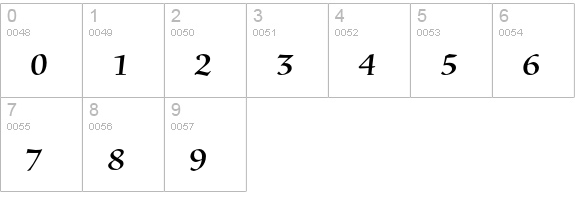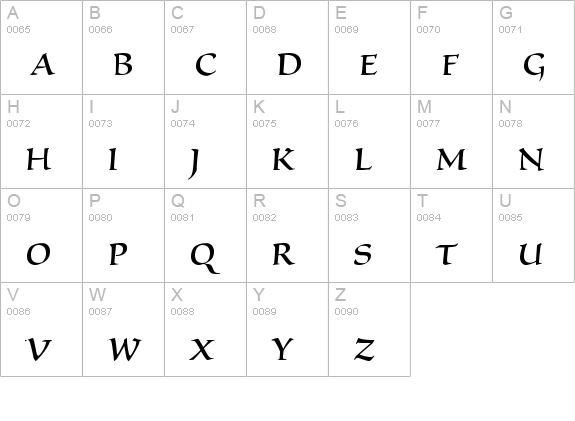
Silentium Pro Roman II Font Details
Silentium Pro Roman II font is a timeless and elegant typeface that exudes sophistication and refinement. With its clean lines and classic proportions, this font is perfect for adding a touch of class to any design project. The Silentium Pro Roman II font features a harmonious balance between sharp angles and graceful curves, creating a visual harmony that is pleasing to the eye. Its versatile nature makes it suitable for a wide range of applications, from luxurious branding and advertising to editorial design and elegant invitations. One of the standout features of the Silentium Pro Roman II font is its legibility, even at small sizes. The meticulously crafted letterforms ensure that every character is distinct and easily readable, making it an excellent choice for body text in print materials or on digital platforms. One of the best things about Silentium Pro Roman II font is that it is completely free. Yes, you read that right! This exquisite font is freely available to download at FontsMarket.com. Whether you are a professional designer or a hobbyist, you can now access this premium font without any cost. So why wait? Enhance your designs with the timeless elegance of Silentium Pro Roman II font. Download it for free at FontsMarket.com and unlock a world of possibilities for your creative projects.